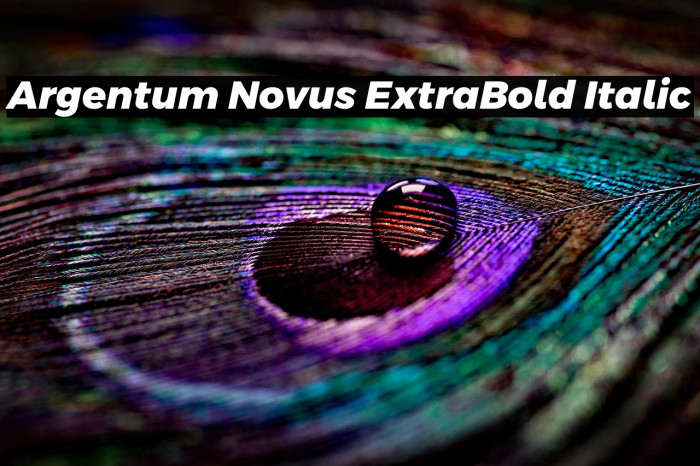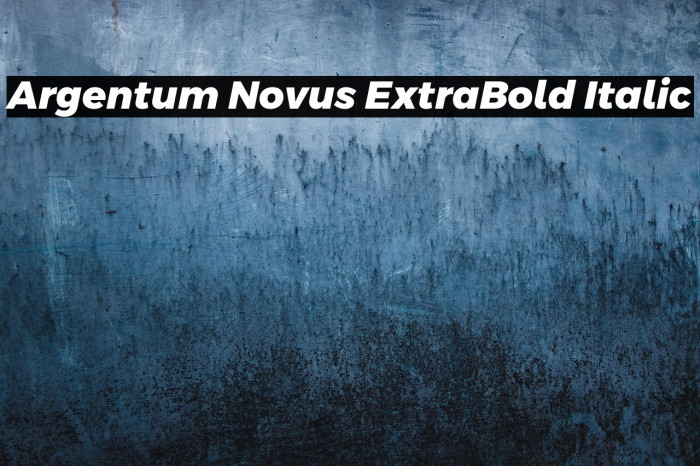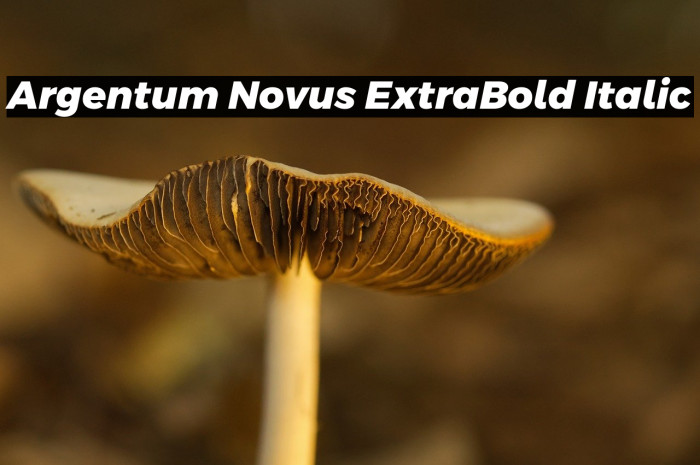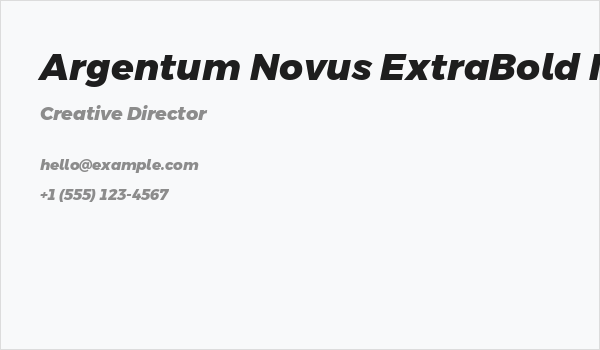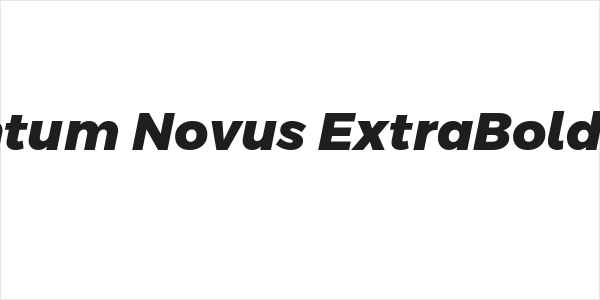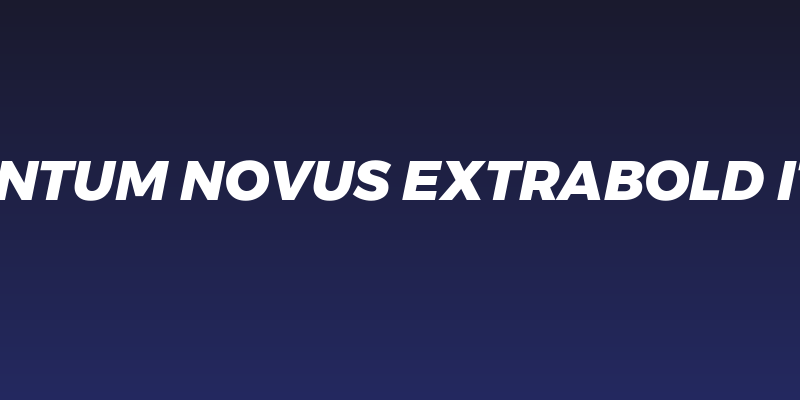
Argentum Novus ExtraBold Italic Font
Argentum Novus ExtraBold Italic Description
This font features a bold and dynamic style with a strong italic slant, making it highly impactful and attention-grabbing. The characters are robust and well-defined, with a modern aesthetic that combines both strength and elegance. The uppercase letters are particularly striking, with a commanding presence that is ideal for headlines and titles. The lowercase letters maintain the same boldness, ensuring consistency throughout the text. Numbers and special characters are equally bold, providing a cohesive look across all elements. The overall design is sleek and contemporary, suitable for a variety of modern applications.
| Use Case | Headlines, Logos, Advertising |
| Proposed Projects | Ideal for branding, advertising, headlines, and digital media projects where a strong visual impact is required. |